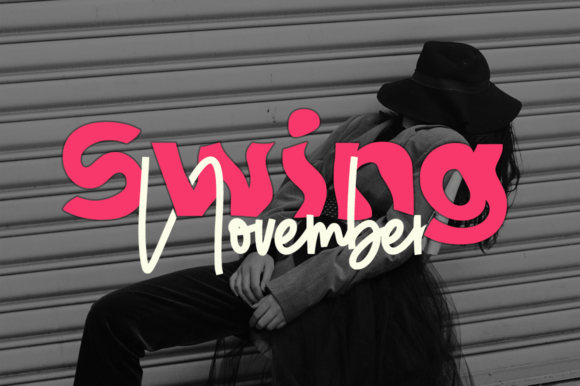
Swing November Font: Elevate Your Designs with Whimsical Charm
In the realm of typography, few fonts manage to capture the essence of contemporary charisma and joviality as effortlessly as Swing November. This delightful duo font is a game-changer for designers seeking to infuse their creative portfolios with a magnetic allure. With its whimsically delightful aesthetic, Swing November is poised to become your go-to font for a wide range of design projects.
The Allure of Swing November
Swing November’s appeal lies in its versatility and adaptability. This font duo can be used in combination or independently, seamlessly fitting into various themes and design concepts. Whether you’re working on animated children’s content, school assignments, holiday decor, birthday invitations, summer designs, t-shirt prints, crafting projects, stickers, or sublimation designs, Swing November is the perfect companion.
The font’s effortlessly appealing aesthetic is designed to bring a smile to your audience’s faces. Its playful, yet sophisticated charm makes it an excellent choice for designers seeking to create engaging and memorable content. With Swing November, you can add a touch of whimsy to your designs, making them stand out in a crowded digital landscape.
Endless Design Possibilities
Swing November’s flexibility is one of its most significant advantages. This font duo can be used in a multitude of design projects, including:
- Animated children’s occasions: Bring stories to life with Swing November’s playful, energetic vibe.
- School assignments: Make learning fun with a font that’s both engaging and easy to read.
- Holiday-themed decor: Add a touch of festive cheer to your designs with Swing November’s celebratory feel.
- Festive birthday invitations: Create memorable party invites that set the tone for a fun-filled celebration.
- Sun-drenched summer designs: Capture the carefree spirit of summer with Swing November’s bright, cheerful aesthetic.
- Chic t-shirt prints: Elevate your apparel designs with a font that’s both stylish and attention-grabbing.
- Heartfelt crafting projects: Add a personal touch to your handmade creations with Swing November’s warm, inviting feel.
- Distinctive stickers: Create eye-catching stickers that showcase your brand’s personality.
- Lively sublimation designs: Bring your sublimation projects to life with Swing November’s vibrant, energetic charm.
Why Choose Swing November?
Swing November is more than just a font – it’s an instant boost to your design aesthetic. By incorporating this font duo into your projects, you’ll enjoy:
- Enhanced creativity: Swing November’s unique charm will inspire you to think outside the box and explore new design possibilities.
- Increased engagement: The font’s playful, whimsical nature is sure to captivate your audience and keep them engaged.
- Improved brand recognition: With Swing November, you can create a consistent visual identity that sets your brand apart.
- Effortless adaptability: This font duo seamlessly adapts to various themes and design concepts, making it a versatile addition to your design toolkit.
Designing with Swing November
To get the most out of Swing November, experiment with different design combinations and techniques. Here are a few tips to get you started:
- Mix and match: Combine Swing November’s two fonts to create visually appealing contrasts and hierarchies.
- Play with colors: Experiment with bold, bright colors to amplify the font’s whimsical charm.
- Add textures and patterns: Incorporate textures and patterns to add depth and visual interest to your designs.
- Keep it simple: Don’t be afraid to use Swing November as a standalone font – its elegance and sophistication shine through in simple, yet effective designs.
Swing November is a game-changing font duo that will elevate your designs with its whimsical charm and contemporary charisma. With its versatility, adaptability, and effortlessly appealing aesthetic, this font is poised to become a staple in your design toolkit. Brighten up the world with Swing November font duo – the epitome of endearing sophistication.
Key Features of Swing November Font
- Whimsically delightful aesthetic
- Contemporary charisma and joviality
- Effortlessly appealing and engaging
- Versatile and adaptable
- Suitable for a wide range of design projects
- Instant boost to your design aesthetic
- Font style: Duo font (two fonts in one)
- Characters: Extensive character set, including uppercase and lowercase letters, numbers, and punctuation marks
- Language support: Multilingual support